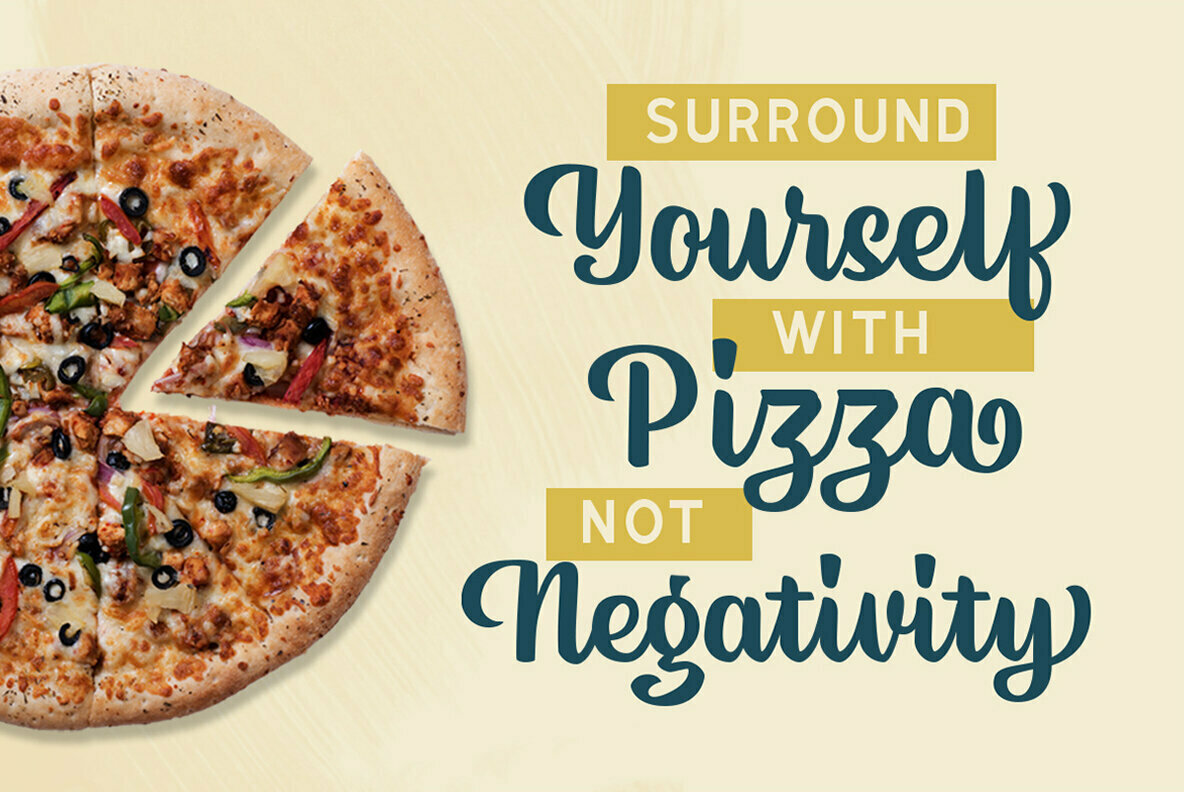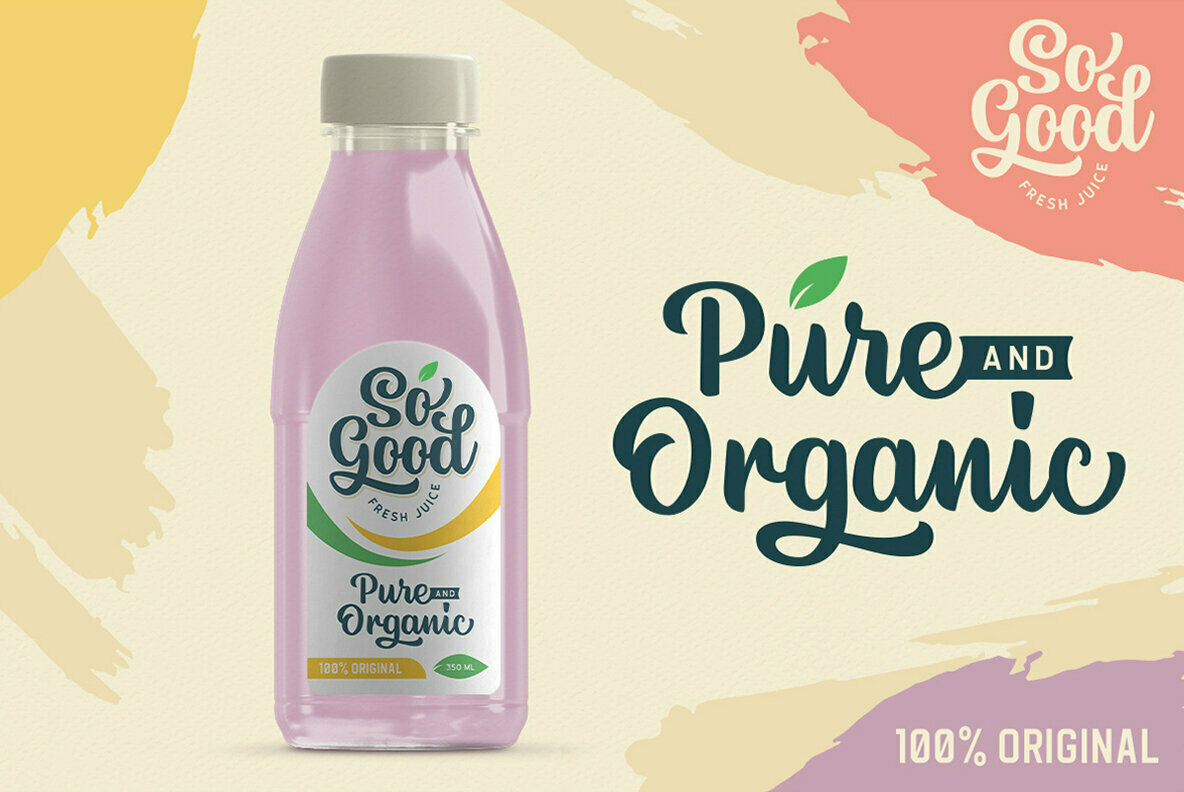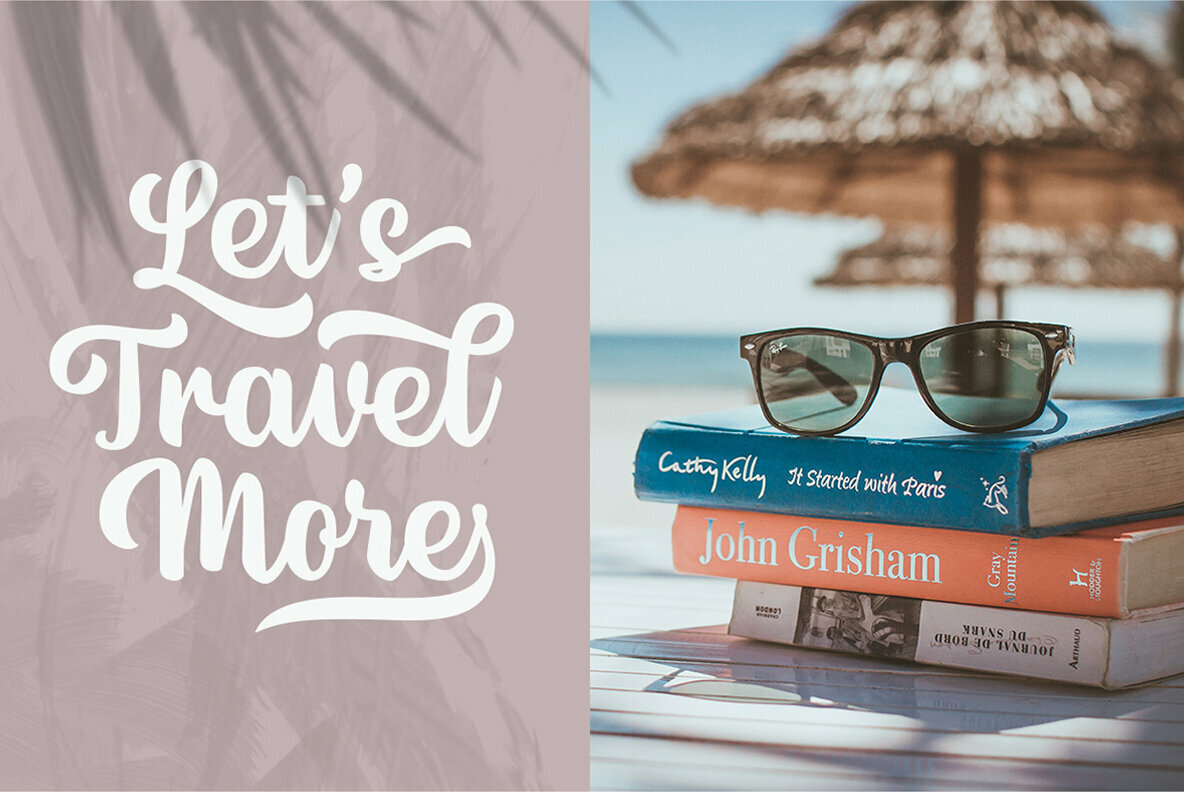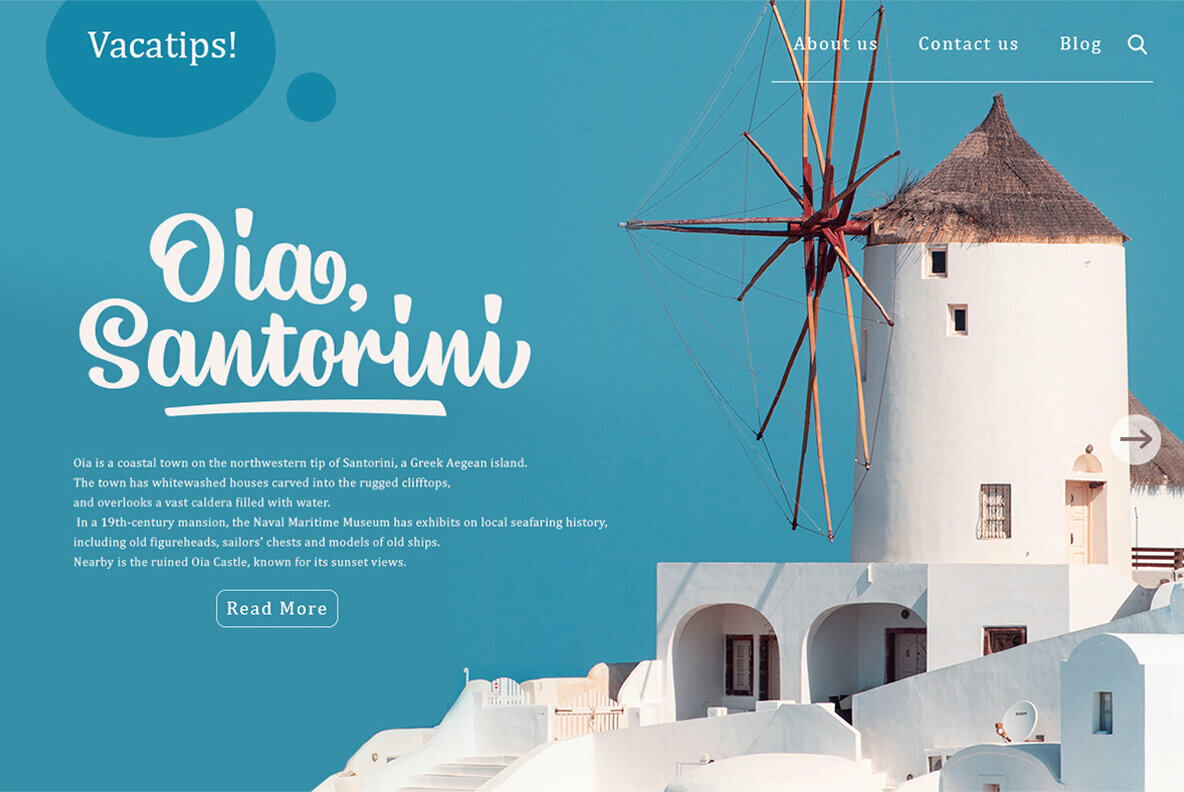
Lanoline, a playful script typeface. As you can see, this typeface has casual look yet still looks bold and stands out from the crowd. The swashes make the font looks even more unique. You can play around and mix and match the swashes, combining into a great logotype! They works perfect for you who needs a typeface for headline, logotype, apparel, invitation, branding, packaging, advertising etc. This typeface is comes in uppercase, lowercase, punctuation, symbols, numerals, stylistic set alternate, ligatures, etc also support multilingual.